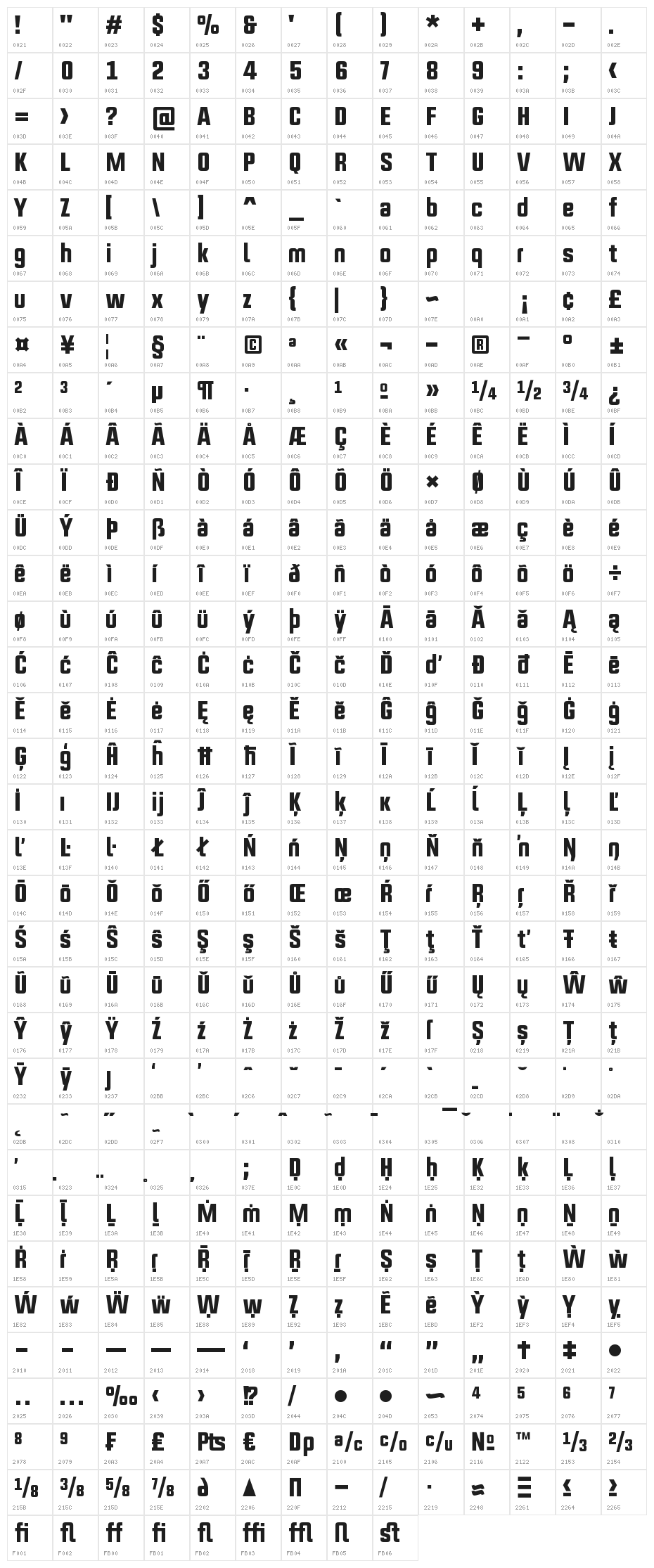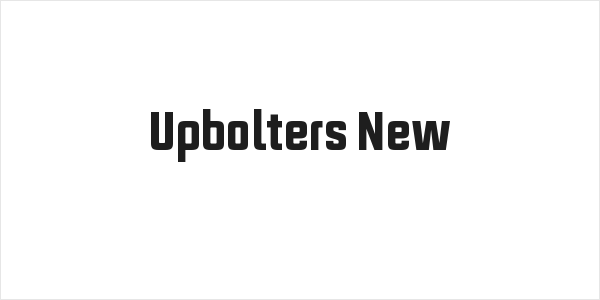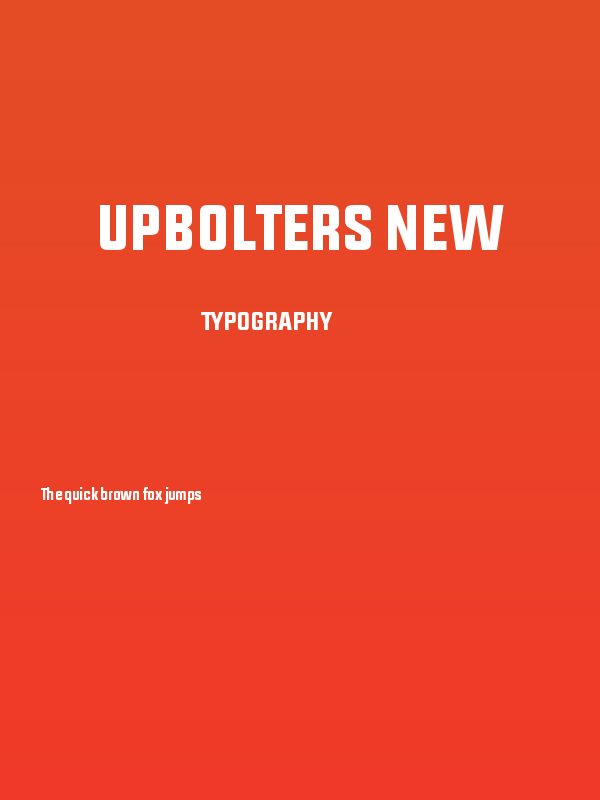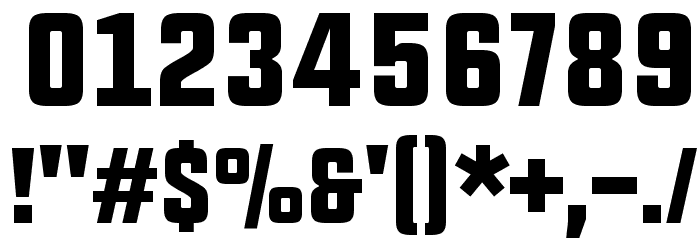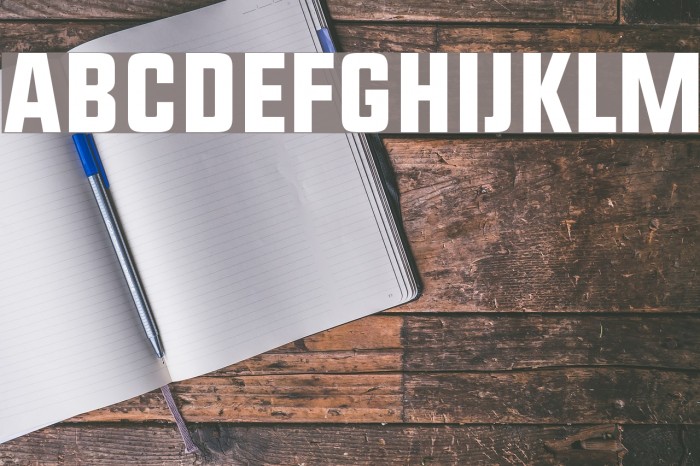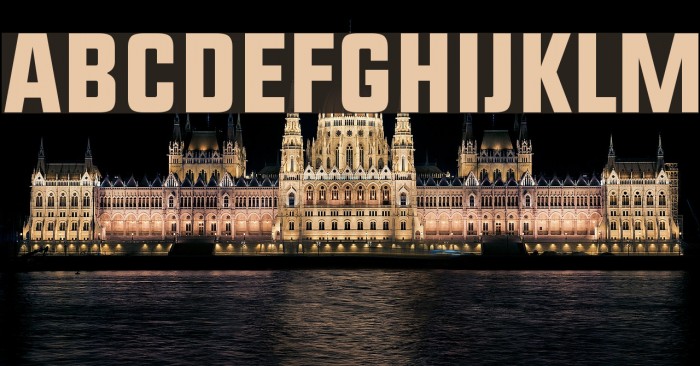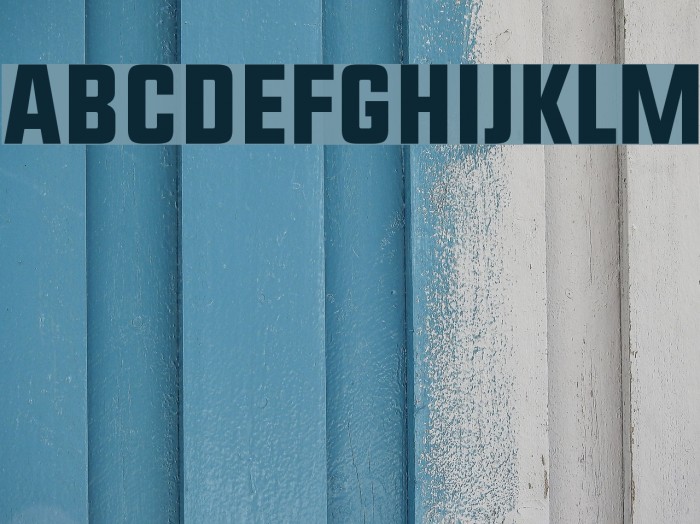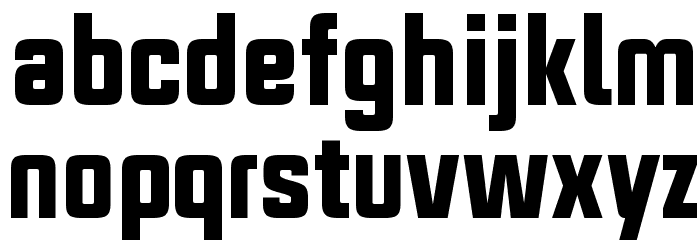
Upbolters New Font
Upbolters New Description
This font features a bold and assertive style, characterized by thick, uniform strokes that convey strength and stability. The uppercase and lowercase letters maintain a consistent height, contributing to a cohesive and structured appearance. The numerals are equally bold, ensuring readability and impact. Special characters are designed with the same robust quality, making them stand out effectively. The overall design is modern and clean, suitable for making strong visual statements.
| Proposed Projects | Ideal for branding, headlines, posters, and any project requiring a strong visual presence. |